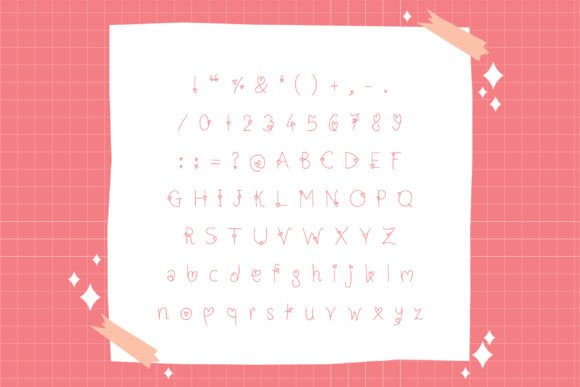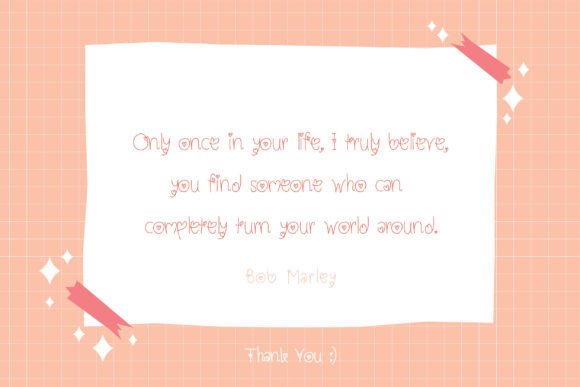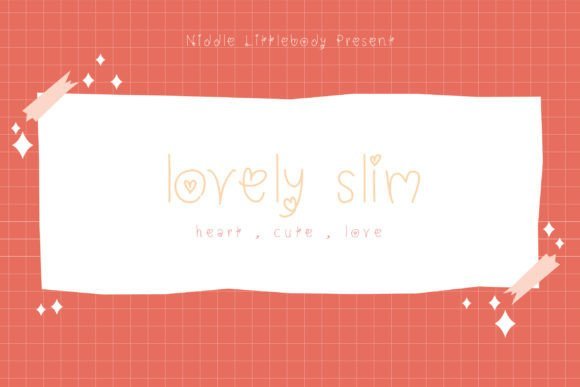
Introduction to Lovelyslim Font
lovelyslim is a sweet and adorable handwritten font.
Decorated with delightful little hearts on some letters, this font will be perfect for all your projects that require a cute look This font is perfect for any design that needs a touch of love and romance.
Lovelyslim Font offers exceptional quality and versatility, making it a valuable addition to your design toolkit. Whether you’re creating for personal projects or commercial use, Lovelyslim Font delivers professional results.